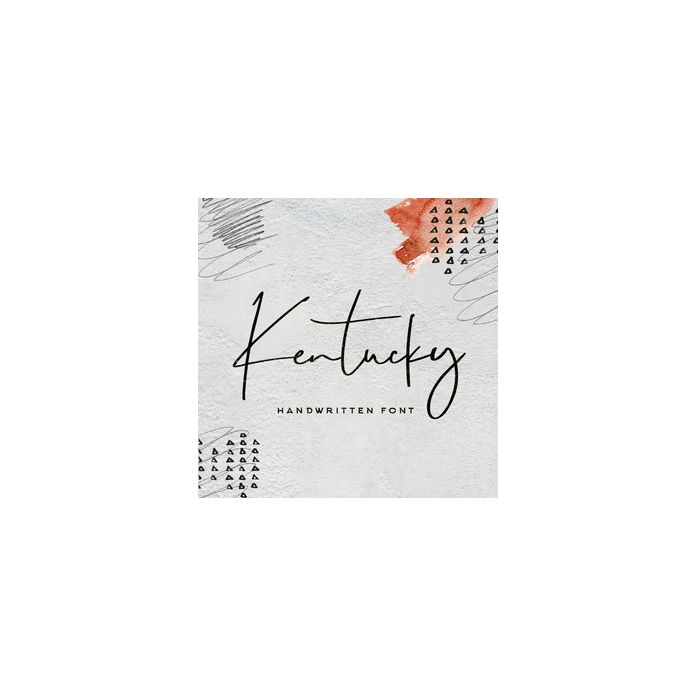
Kentucky is a whimsical font meticulously designed to give you that signature style script. It's also got dozens of ligatures to further pump that hand drawn aesthetic.